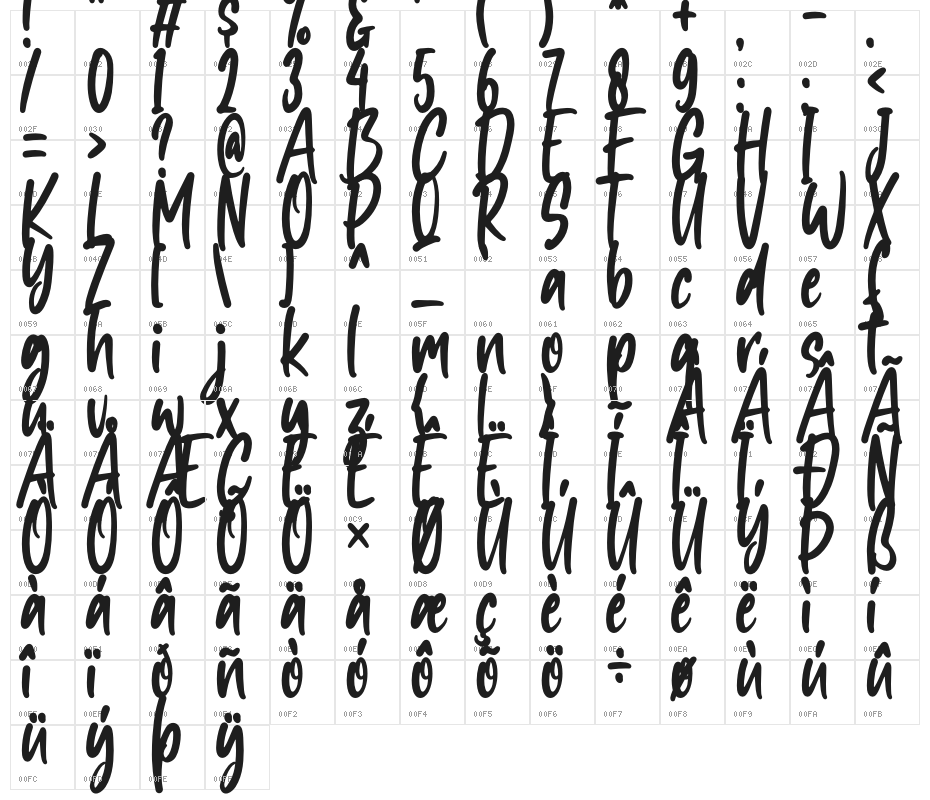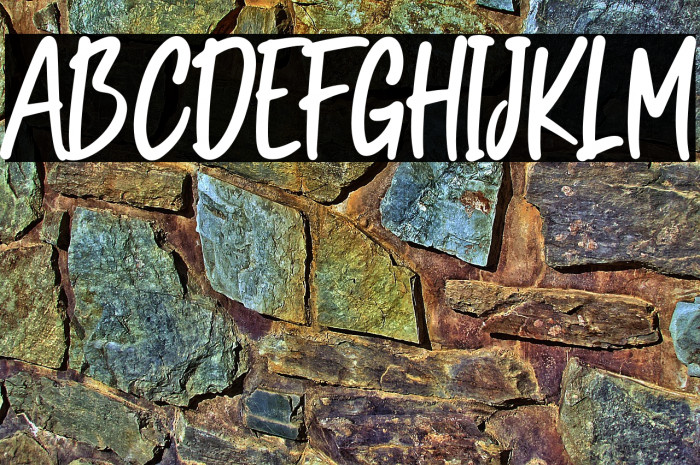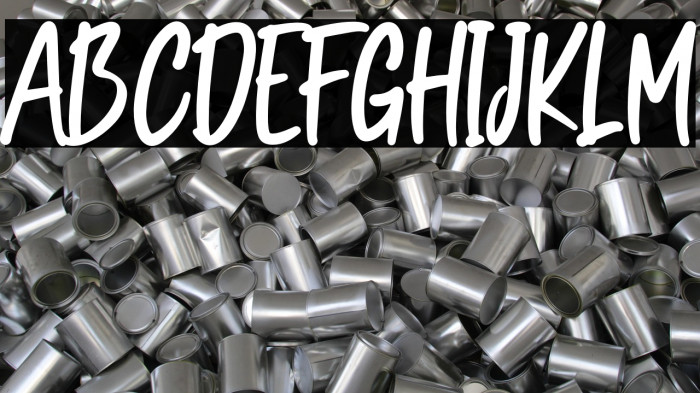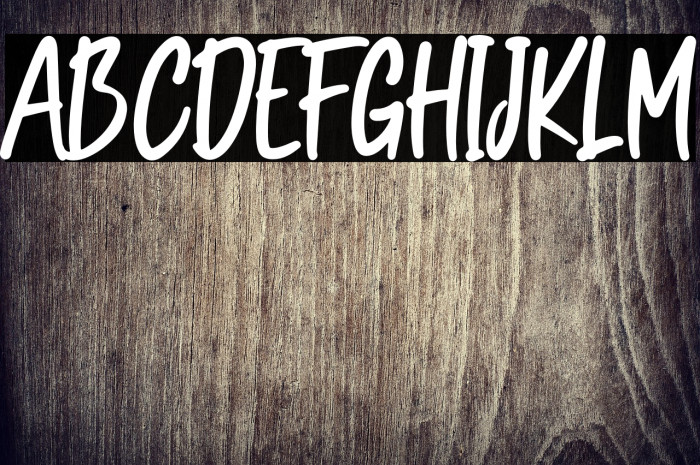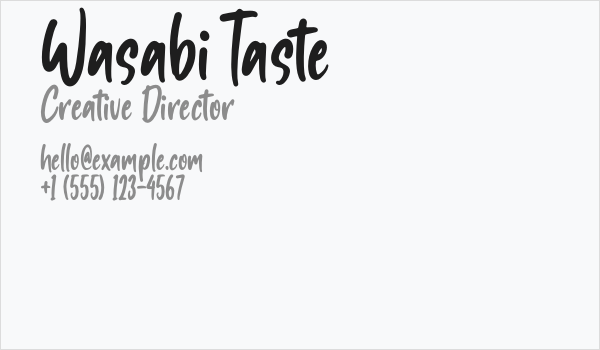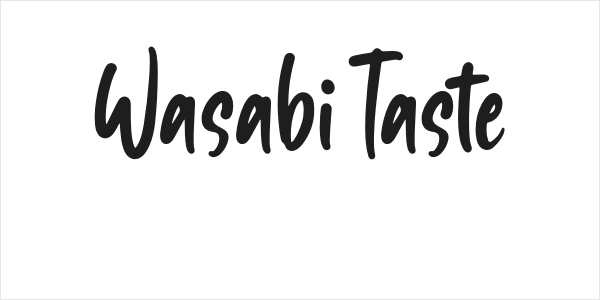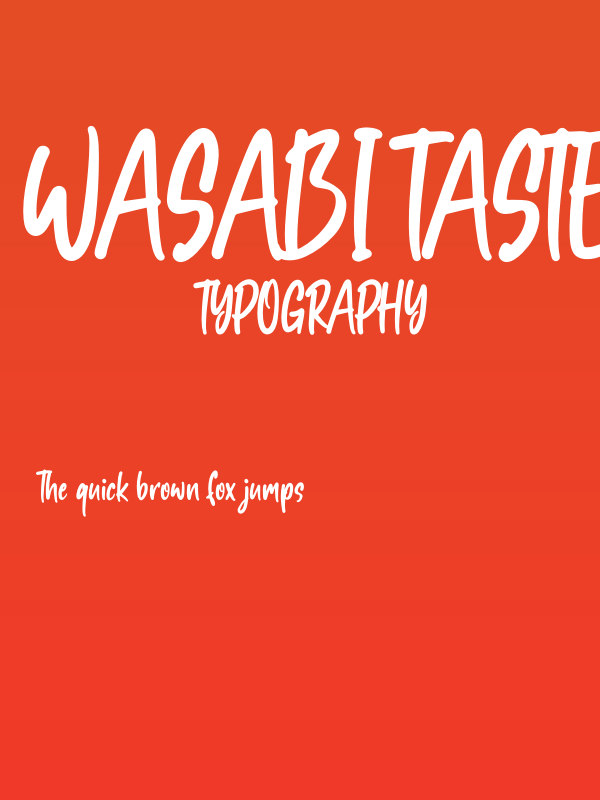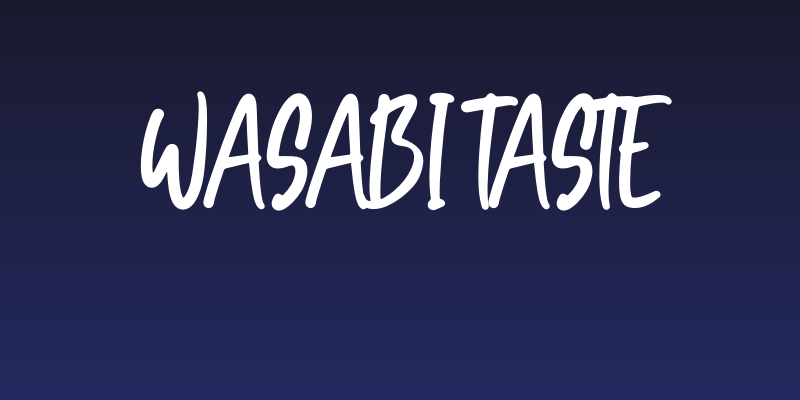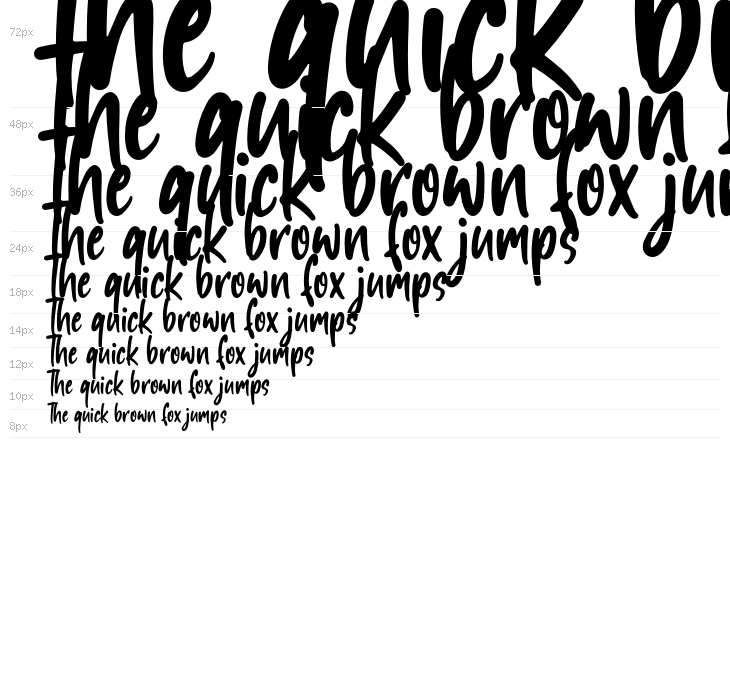
Wasabi Taste Font
Wasabi Taste Description
This font exudes a bold and energetic personality, characterized by its handwritten style that mimics the fluidity and spontaneity of brush strokes. The letters are slightly slanted, adding a dynamic and informal touch. The uppercase and lowercase letters maintain a consistent flow, with some characters featuring unique loops and curves that enhance its artistic flair. The numbers and special characters are equally expressive, maintaining the same lively and bold appearance. This font is perfect for projects that require a personal and creative touch, such as invitations, posters, or branding materials that aim to convey a sense of fun and individuality.
| Proposed Projects | Ideal for creative projects like invitations, posters, and branding that require a personal, artistic touch. |